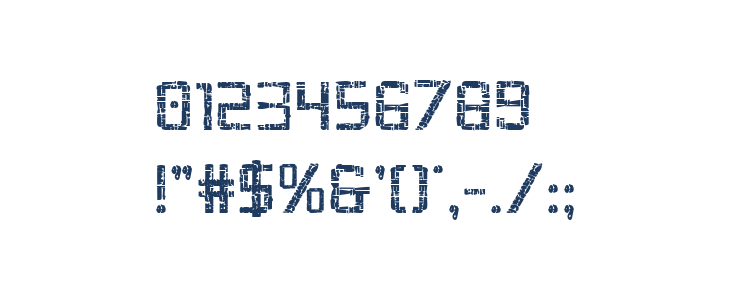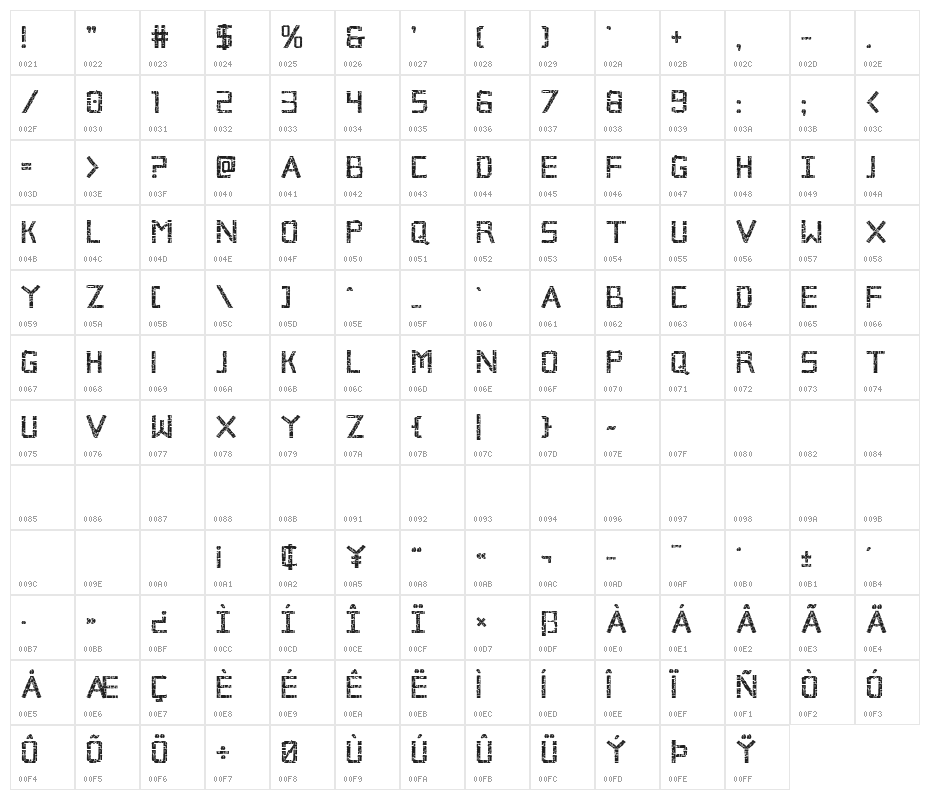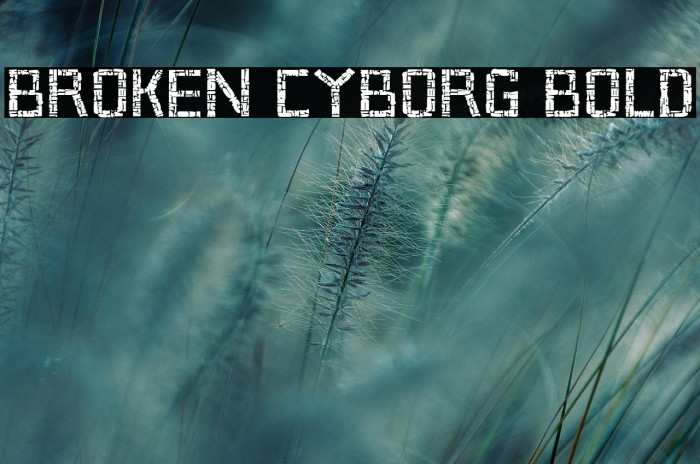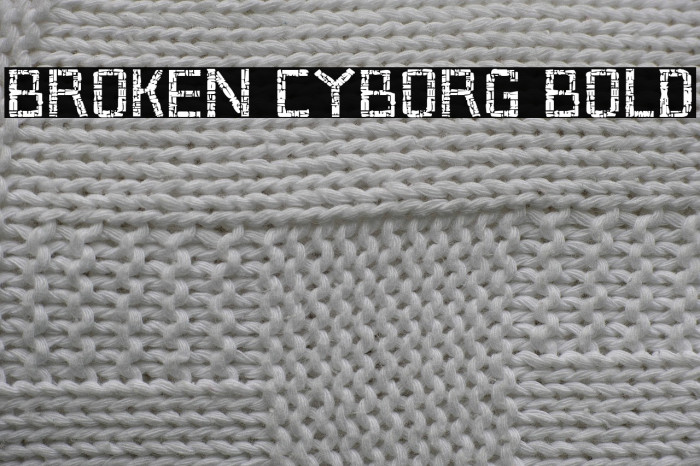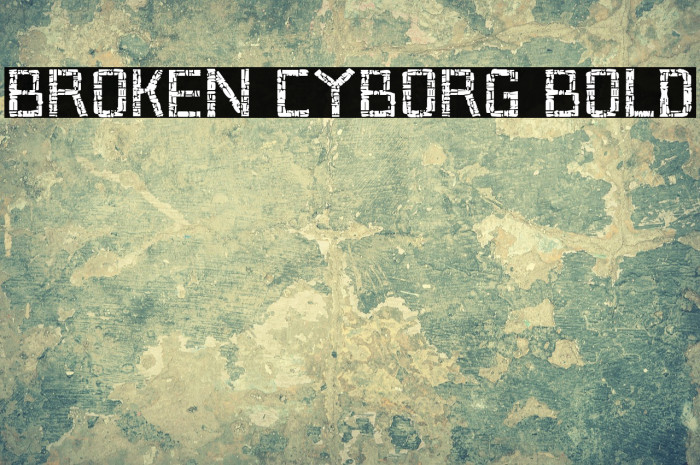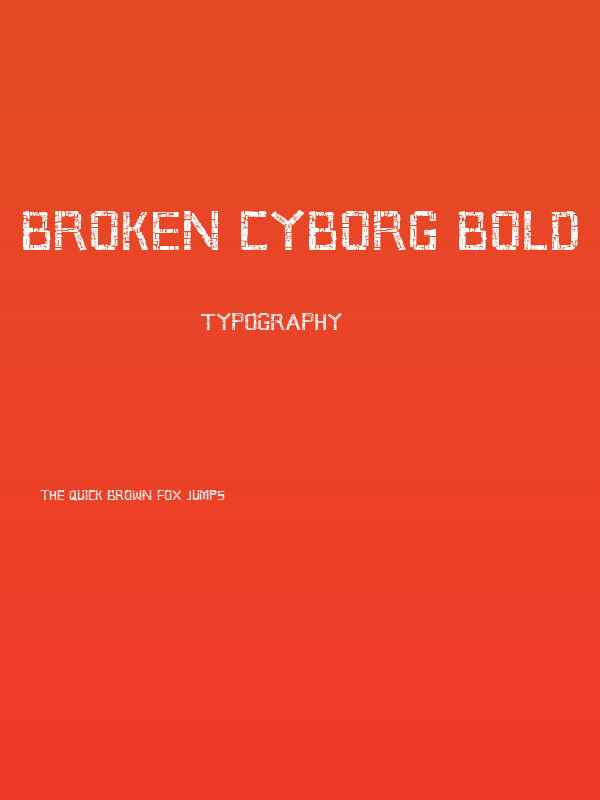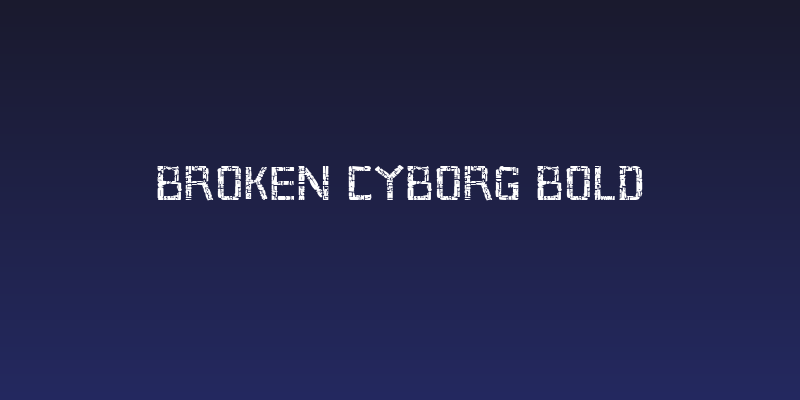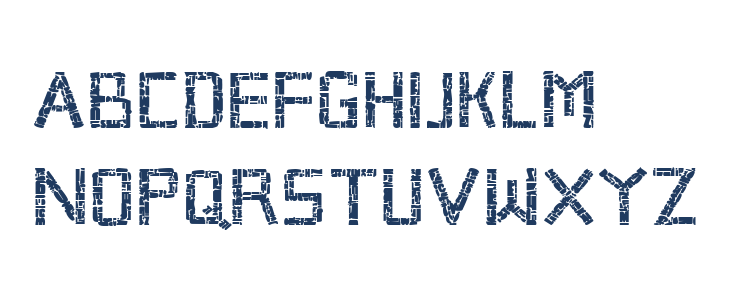
Broken Cyborg Bold Font
Broken Cyborg Bold Description
This font features a bold, futuristic design with a distressed, fragmented appearance. Each character is constructed with a series of broken, angular segments that give it a mechanical, cyborg-like aesthetic. The uppercase and lowercase letters maintain a consistent style, with sharp edges and a blocky structure. Numbers and special characters follow the same design principles, ensuring uniformity across the font. The unique, digital-inspired look makes it ideal for projects that require a modern, edgy feel.